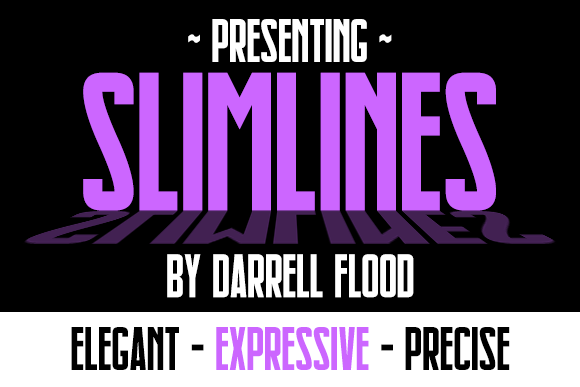
Introducing Slimlines Font, the ultimate choice for those seeking a captivating and unique typography experience. Crafted by the talented designer Dadiomouse, this sans serif font is specifically engineered to optimize horizontal space utilization. With its sleek and slender appearance, Slimlines Font effortlessly captures attention and adds a touch of elegance to any project.
Looking to make a bold statement? Slimlines Font is your perfect companion! Its thin and tall design exudes confidence and sophistication, making it ideal for creating eye-catching headlines that demand attention. Whether you're working on a website, a poster, or an advertisement, this font will elevate your message and leave a lasting impression on your audience.
One of the standout features of Slimlines Font is its versatility. Its clean and minimalist style lends itself well to various design concepts, allowing you to effortlessly integrate it into any project. From modern and sleek to classic and timeless, this font seamlessly adapts to your creative vision, making it suitable for a wide range of industries and applications.
Are you a magazine enthusiast? Slimlines Font is a game-changer for enhancing your publication's visual appeal. Its slender and refined strokes add a touch of sophistication to your text, making it a perfect choice for both headlines and body content. Let your articles shine with this font's remarkable legibility and modern aesthetic, captivating readers and keeping them engaged from cover to cover.
But Slimlines Font goes beyond just visual appeal – it evokes emotions and enhances the overall user experience. The tall letterforms create a sense of elegance and grace, while the thin strokes convey a feeling of delicacy and subtlety. These elements combined make Slimlines Font an excellent choice for branding and logo design, enabling you to establish a strong and memorable brand identity.
To top it all off, Slimlines Font boasts an extensive collection of characters and glyphs, ensuring compatibility with multiple languages and allowing you to cater to a global audience. No matter where your customers are located, this font has got you covered, enabling seamless communication and brand consistency across different cultures and languages.
In conclusion, Slimlines Font is the epitome of elegance, versatility, and functionality. With its slender design, captivating appeal, and extensive character set, it's the ideal choice for anyone seeking to make a lasting impression. Whether you're a designer, a marketer, or an entrepreneur, this font will elevate your projects to new heights and captivate your audience like never before.